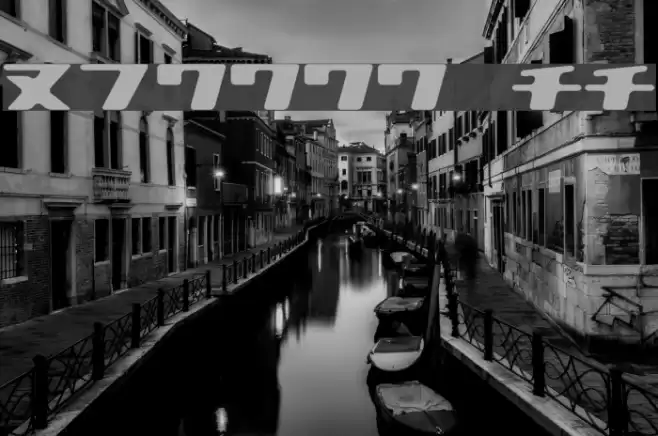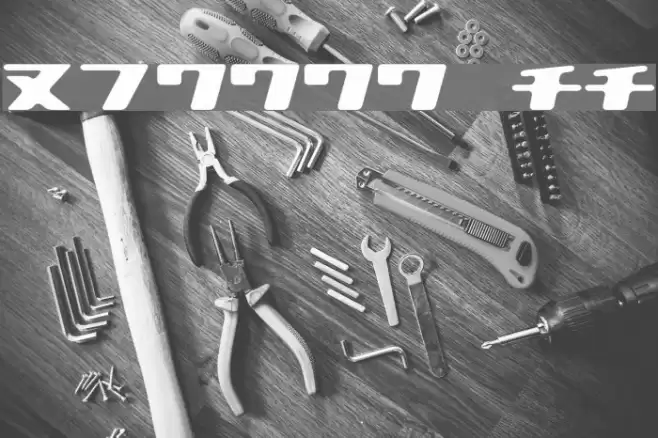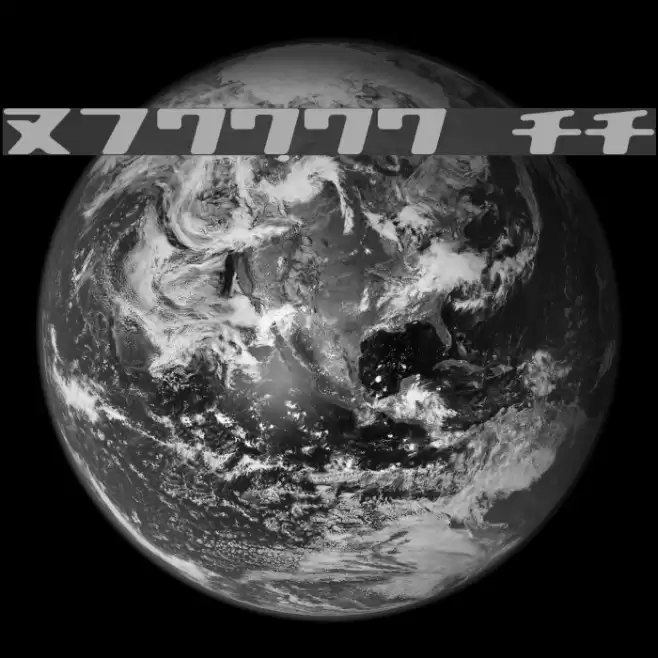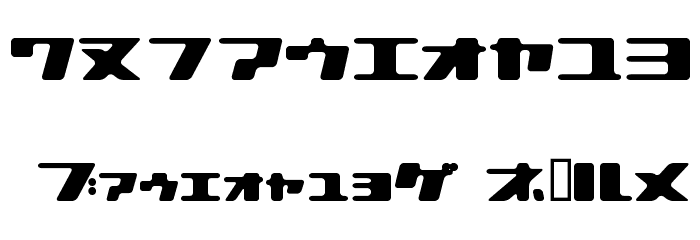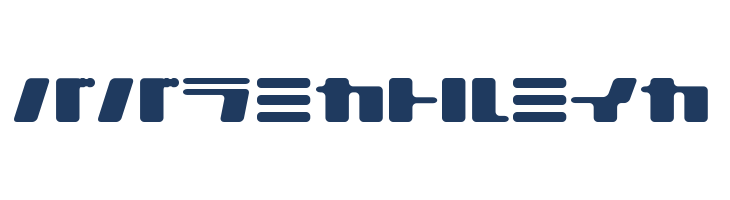
120000volt Kana Font
120000volt Kana Description
This font features a bold, futuristic design with a distinctly modern aesthetic. The characters are wide and blocky, with rounded edges that give them a soft yet impactful appearance. The style is reminiscent of digital or sci-fi themes, making it ideal for projects that require a contemporary and technological feel. The uniformity in the character shapes provides a cohesive look, while the boldness ensures high visibility and readability. This font is particularly suited for creative and innovative designs that aim to capture attention and convey a sense of modernity.
A bold, futuristic font with a modern, digital aesthetic from Uncategorized fonts.
- Proposed Projects: Ideal for tech-related branding, sci-fi themed posters, video game titles, and futuristic product packaging.
- Width: Expanded